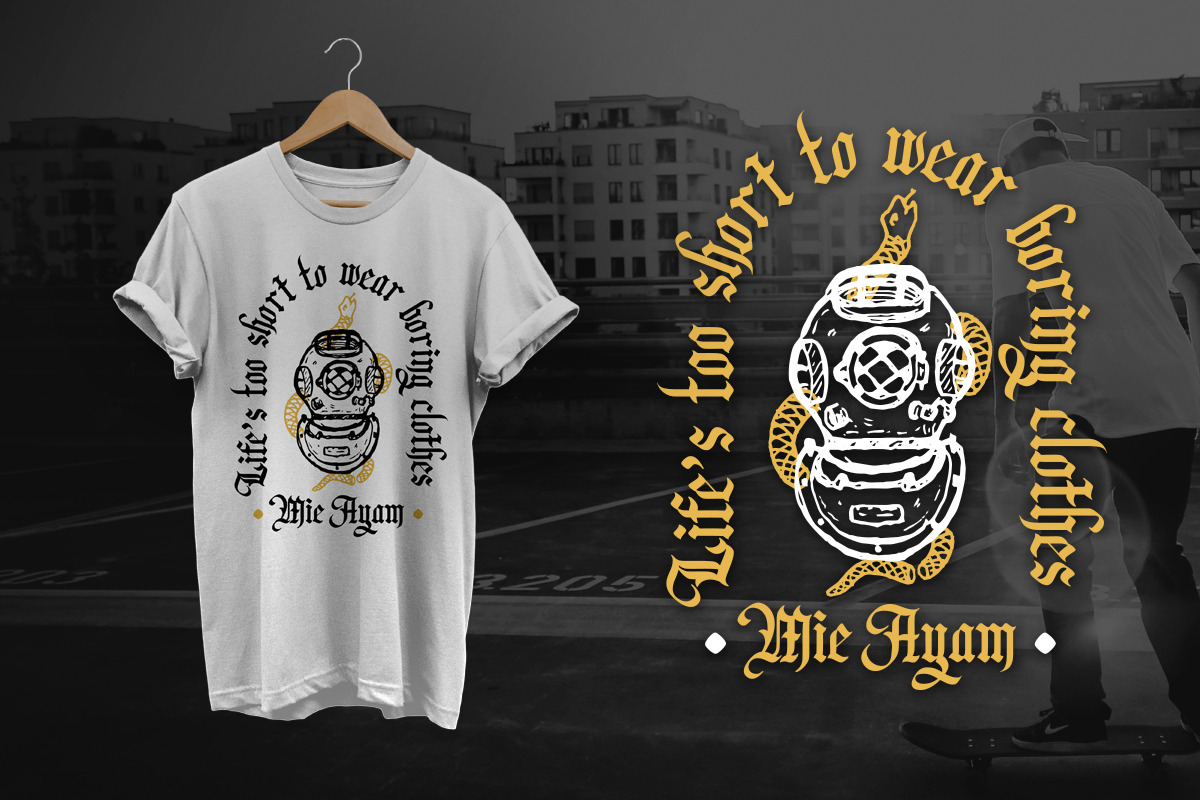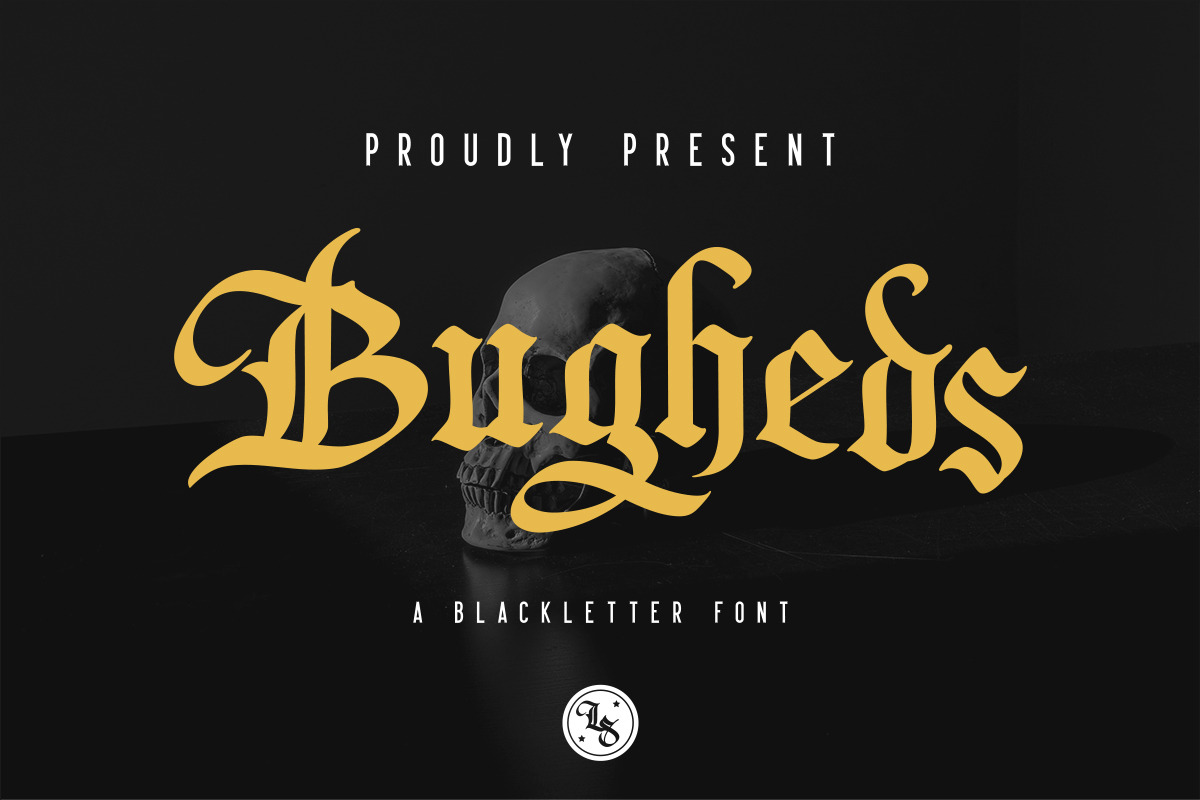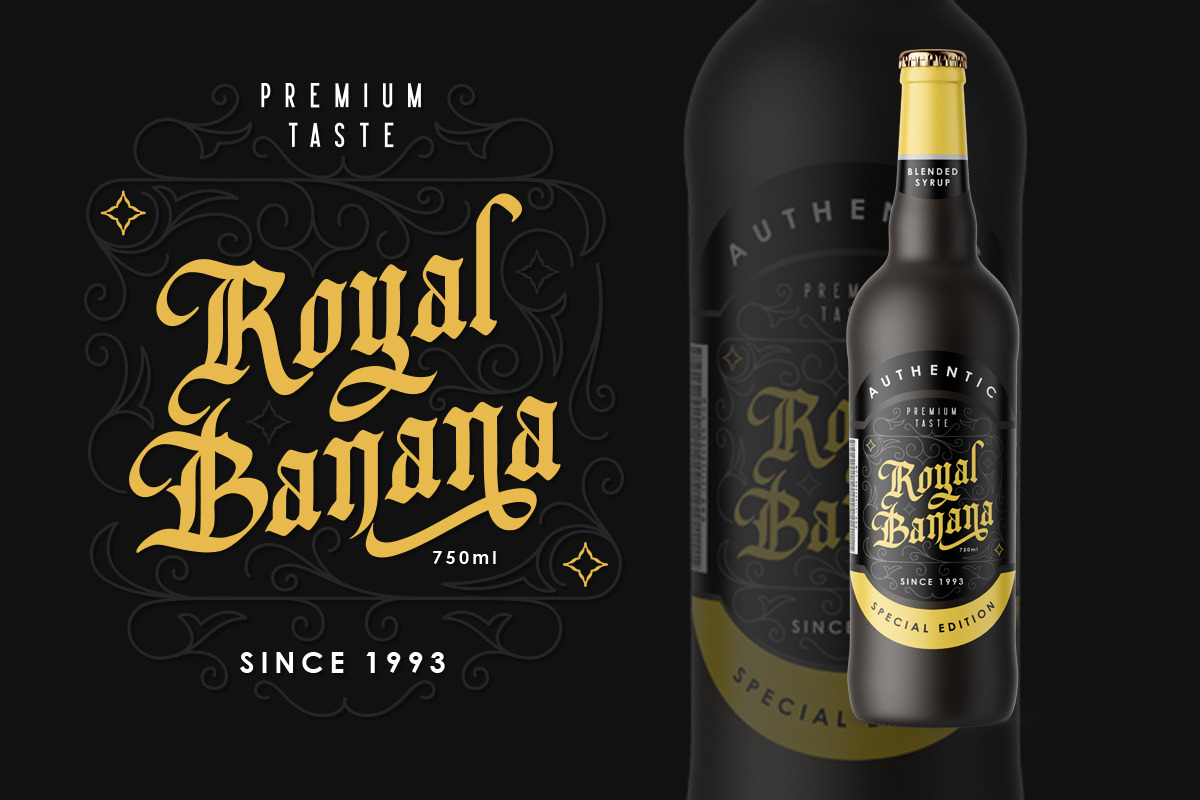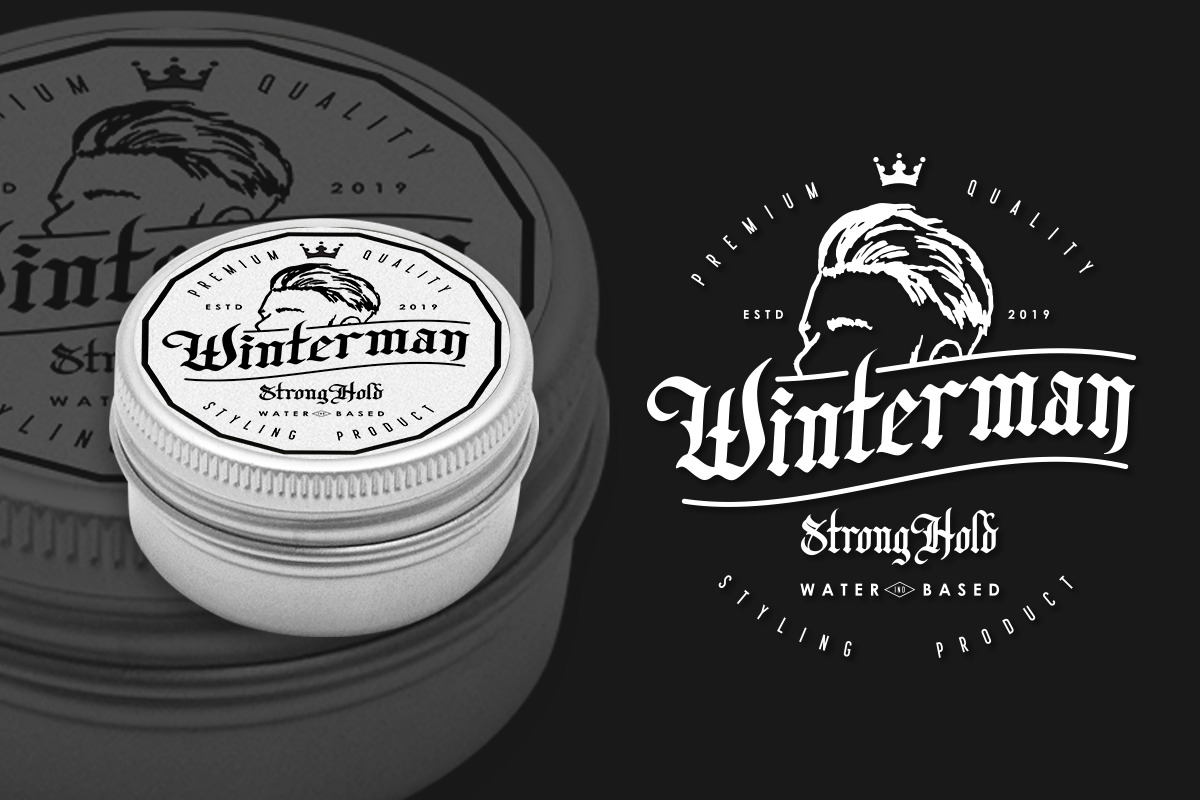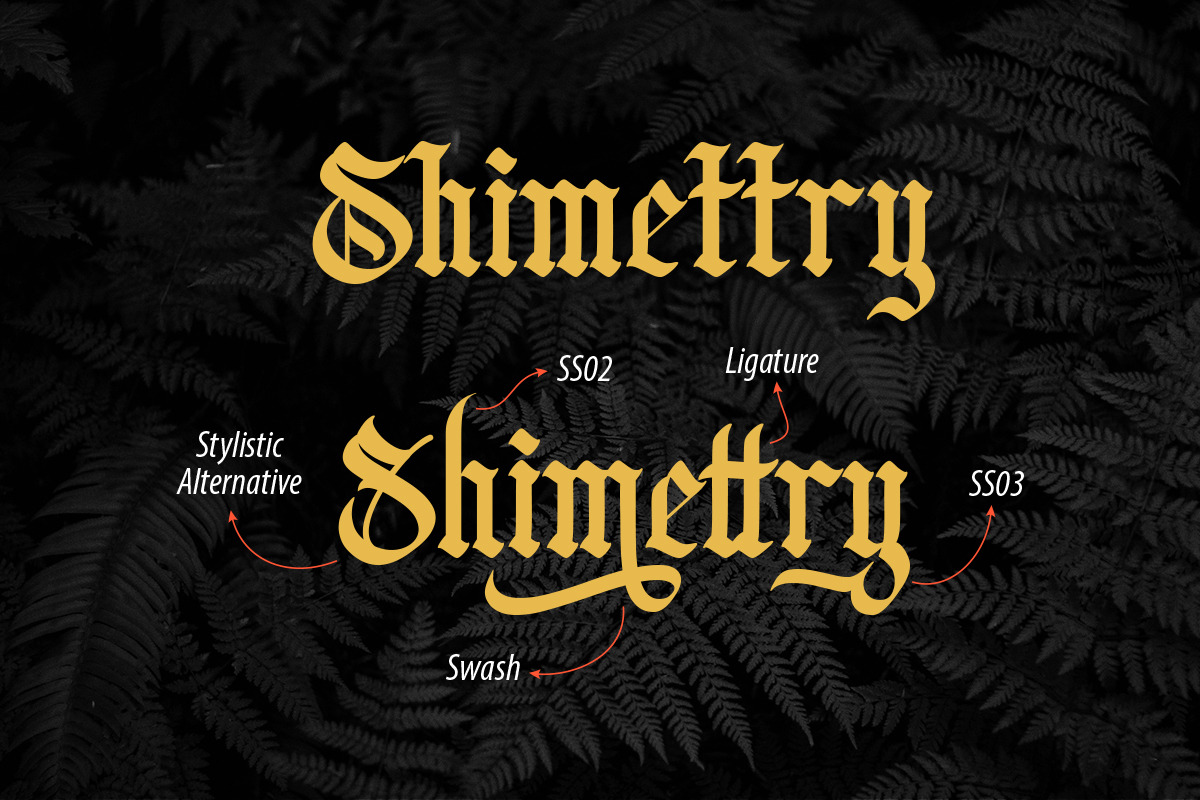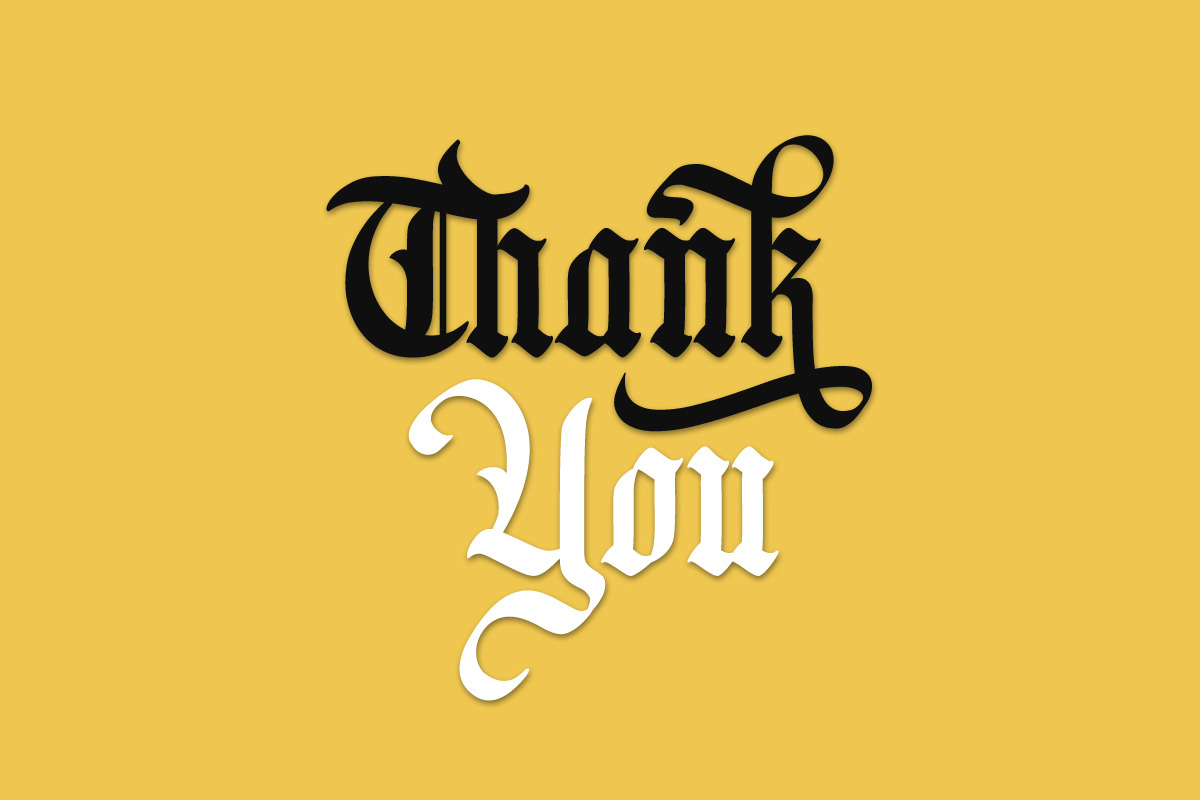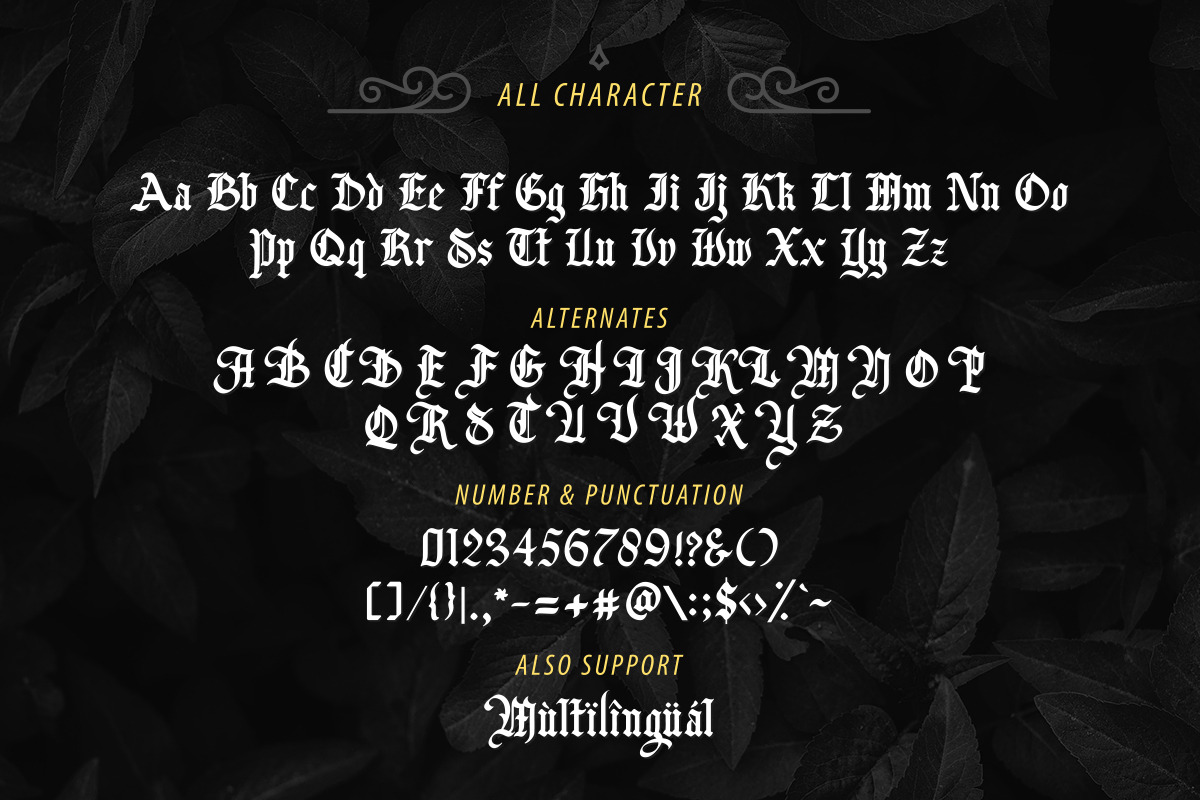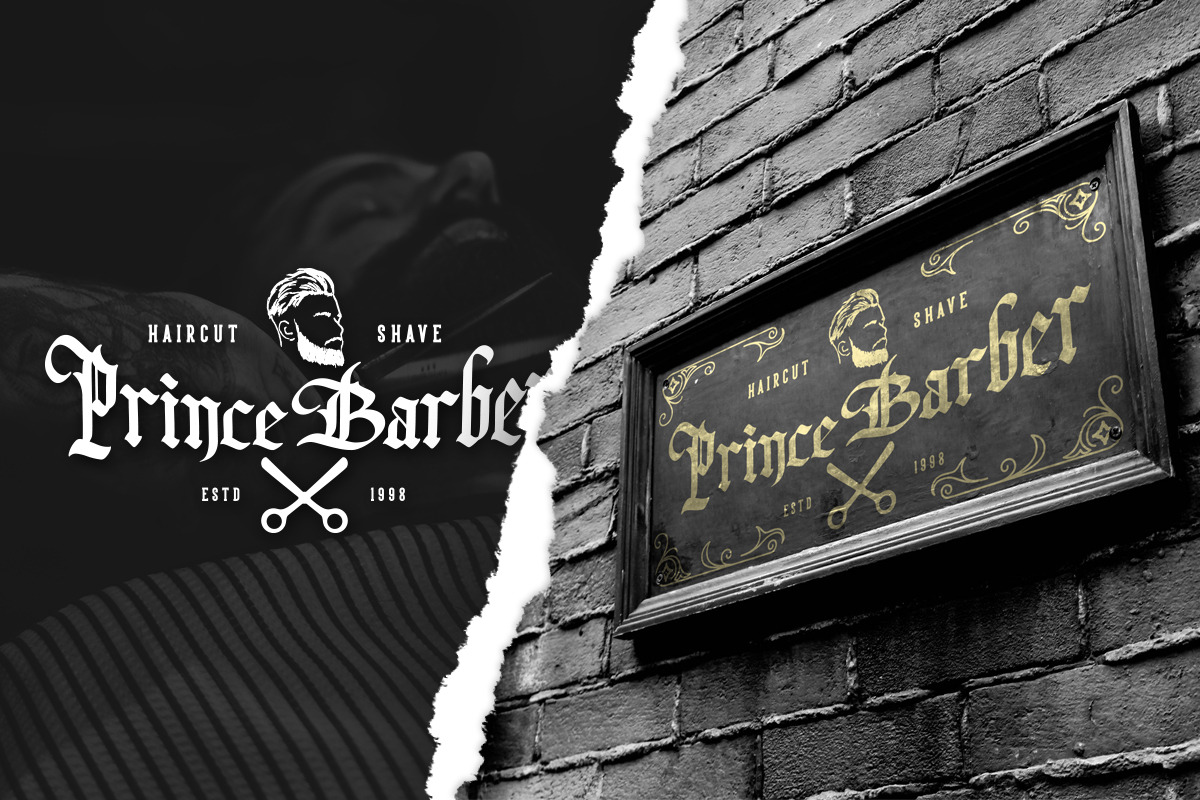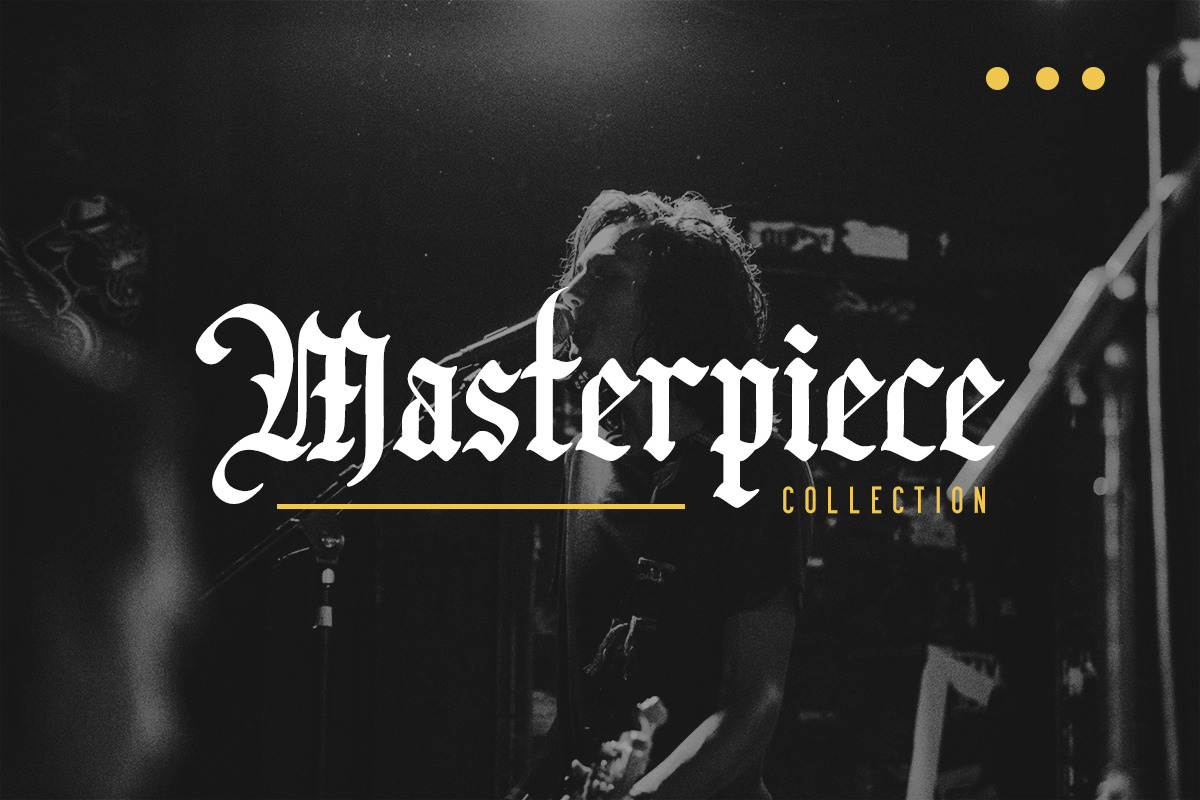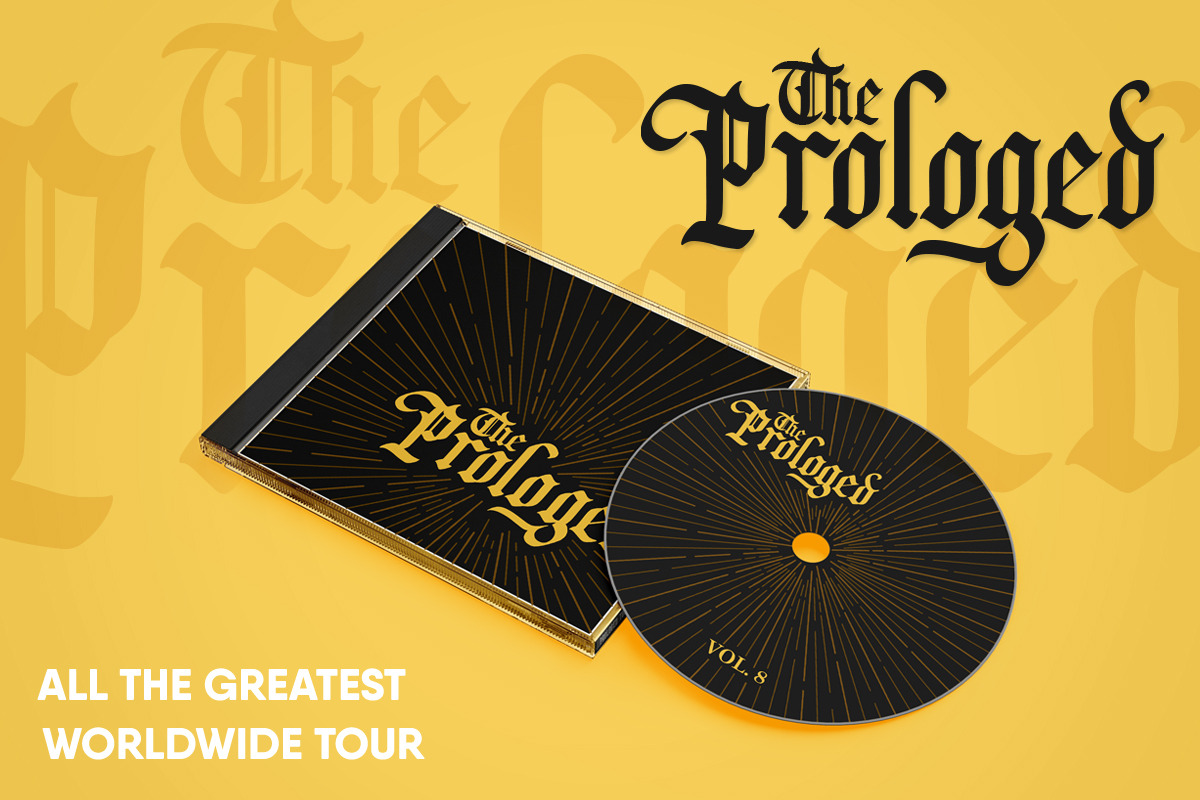
Bugheds - Blackletter Font
Introducing Bugheds. A blackletter font that i've made with a personality touch. They works perfect for you who needs for headline, logotype, apparel, branding, packaging, advertising etc. This font is comes in uppercase, lowercase, punctuation, symbols, numerals, stylistic set alternate, ligatures, etc also support multilingual.